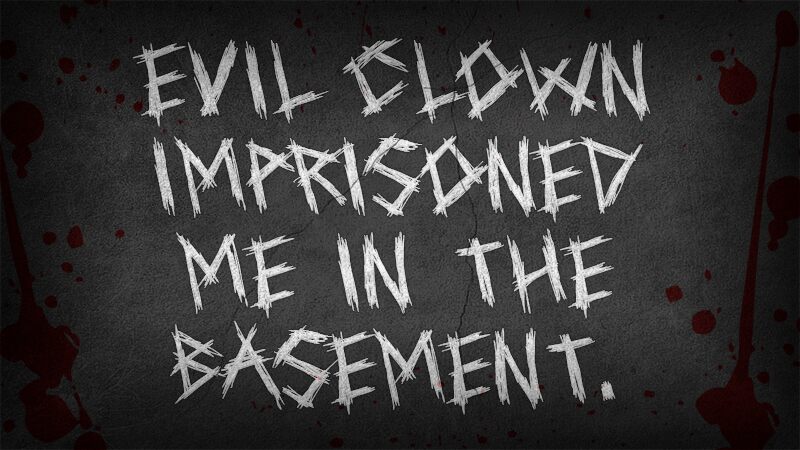
Help Me, a spine-tingling creation by GGBotNet, is a display font that unleashes a chilling aura.
With its terrifying yet captivating appearance, this all caps typeface is perfect for horror movie posters, eerie book covers, and haunted house flyers. Its frighteningly distorted characters and trashy aesthetic will send shivers down your spine.
Whether summoning the supernatural or adding an extra dose of fear to your designs, Help Me will give your projects the bone-chilling edge they need.